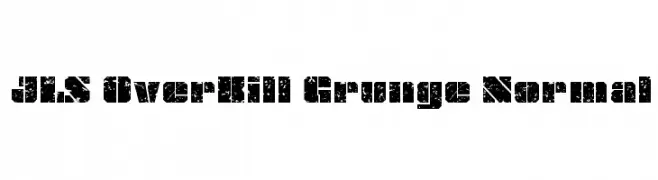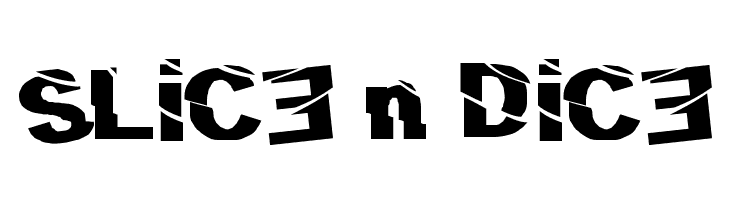
A bold, angular font with a dynamic, edgy, and graffiti-like style.
A distressed, grunge font with a torn, edgy appearance.
A distressed, grungy font with irregular edges and a chaotic appearance.
A bold, sliced, and dynamic font with high visual impact.
A distressed, grunge-style font with a rough, textured appearance.